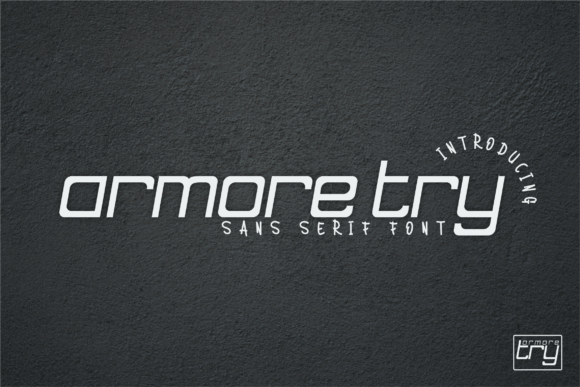
The Armore Try Font: A Modern Sans Serif for Creative Minds
Have you ever been in the middle of a design project, and suddenly, you’re stuck on finding the perfect font? I recall a recent experience where I was working on a screen printing project for a local sports team, and I just couldn’t find a font that captured the right vibe. That’s when I stumbled upon the Armore Try Font, and it completely transformed my design. In this article, we’ll dive into the world of Armore Try Font, exploring its features, uses, and everything in between.
A Personal Encounter with Armore Try Font
I was working on a project for a food truck company, and I needed a font that was modern, yet approachable. I wanted something that would appeal to a wide audience, from kids to adults. After hours of searching, I came across Armore Try Font, and it was love at first sight! The clean lines, the subtle curves, and the overall feel of the font just resonated with me. I knew right then and there that I had found the perfect font for my project.
What I Love About Armore Try Font
- ✨ Modern style: Armore Try Font is a beautifully crafted sans serif font with a modern twist. The clean lines and subtle curves give it a fresh and contemporary feel.
- ✅ Versatility: This font is perfect for a wide range of creative projects, from screen printing to digital designs. You can use it for sports, food, or any other project that requires a modern and approachable font.
- 💡 Accentuated lowercase letters: What sets Armore Try Font apart is its accentuated lowercase letters. This feature adds a touch of personality to the font, making it more engaging and visually appealing.
While Armore Try Font is an excellent choice for many projects, there are a few things to keep in mind:
- 🤔 Limited use in formal contexts: Due to its modern and casual nature, Armore Try Font might not be the best choice for formal projects, such as corporate branding or official documents.
- ⚠️ Legibility at small sizes: As with any font, legibility can be a concern when using Armore Try Font at very small sizes. Make sure to test the font at different sizes to ensure it remains readable.
The Story Behind Armore Try Font
Armore Try Font was engineered from a basic sans serif font with the goal of creating a modern and versatile typeface. Our team wanted to create a font that would be perfect for creative projects, such as screen printing, food, and sports designs. We accentuated the lowercase letters to give the font a touch of personality and make it more engaging.
| What is Armore Try Font? | Armore Try Font is a modern sans serif font engineered for creative projects, such as screen printing, food, and sports designs. |